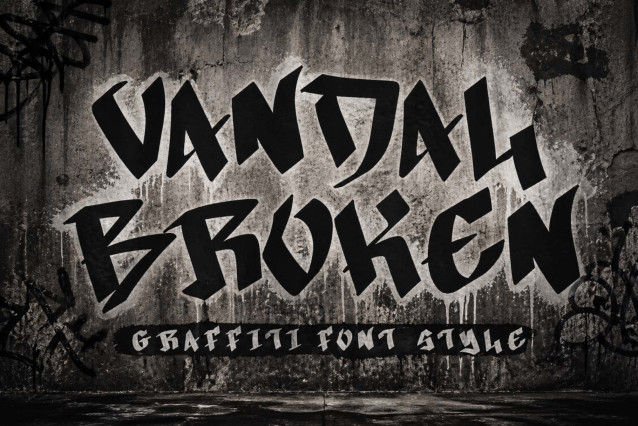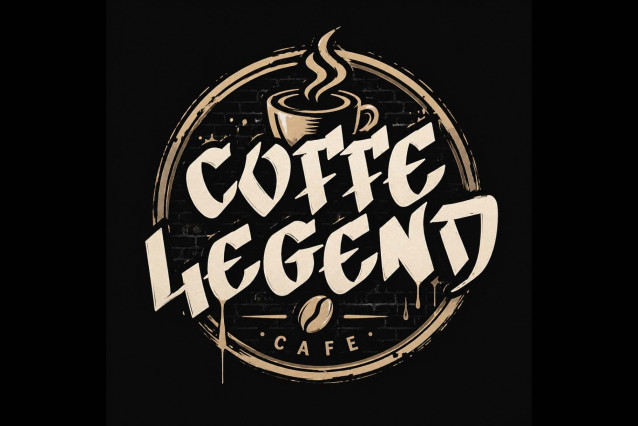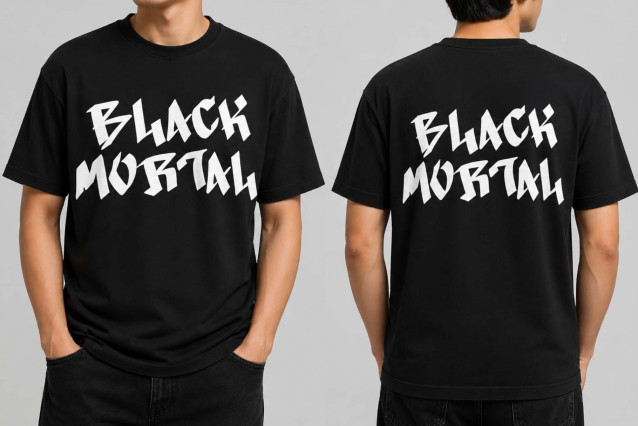
Vandal Broken Font
“Vandal Broken” is a unique and attractive graffiti font. It features uppercase and lowercase letters, numbers, punctuation, and multilingual support. It’s perfect for city wall graffiti, tattoos, banners, posters, stickers, branding, business branding, logos, social media, summer, holidays, t-shirts, jeans, screen printing, murals, Christmas, patriotic, and more.